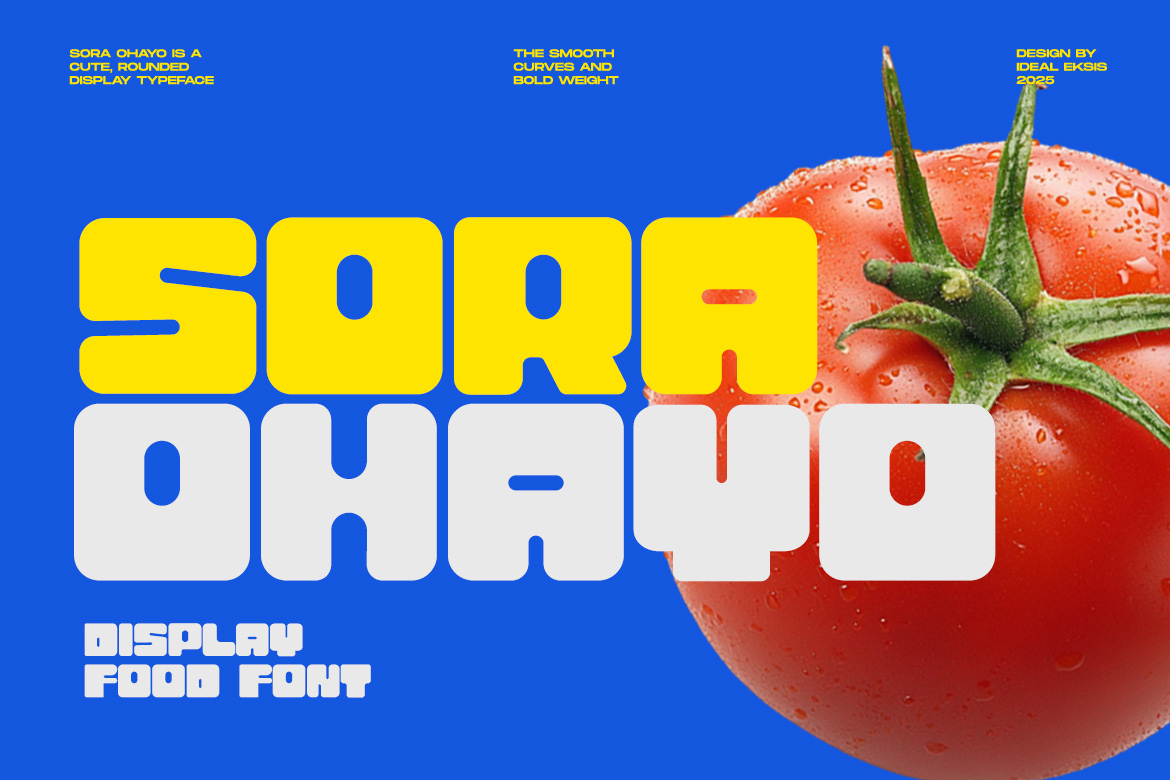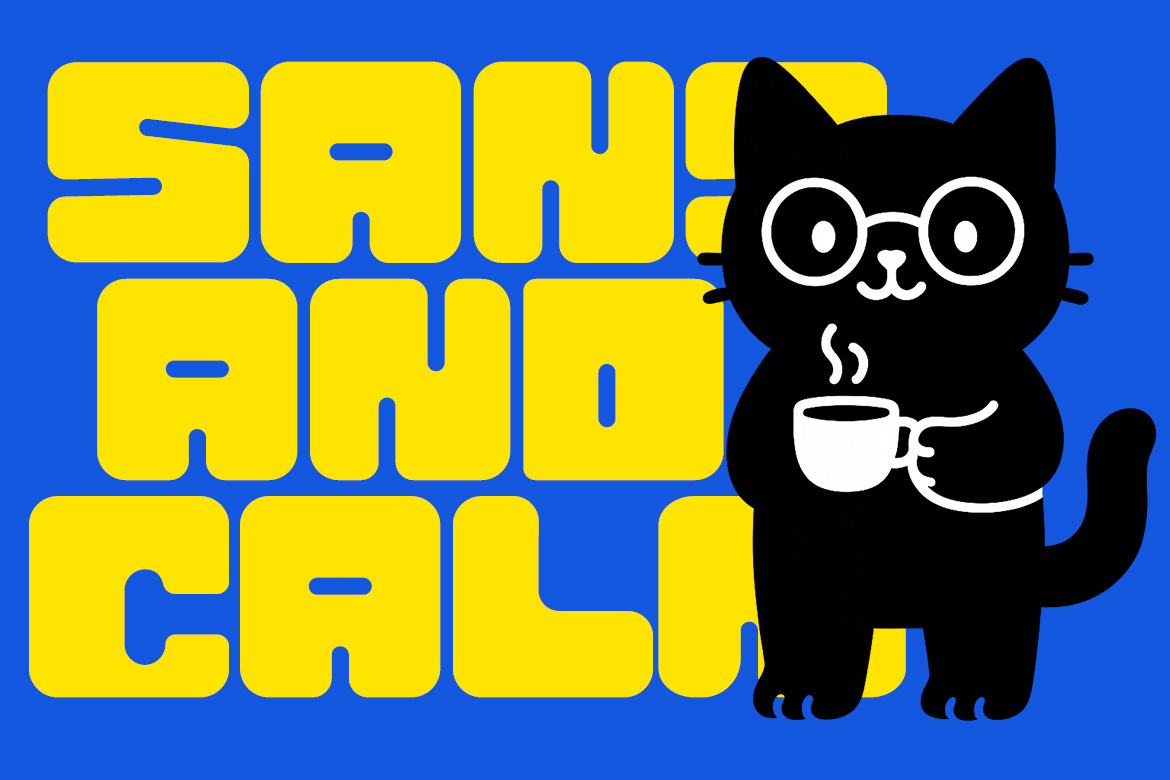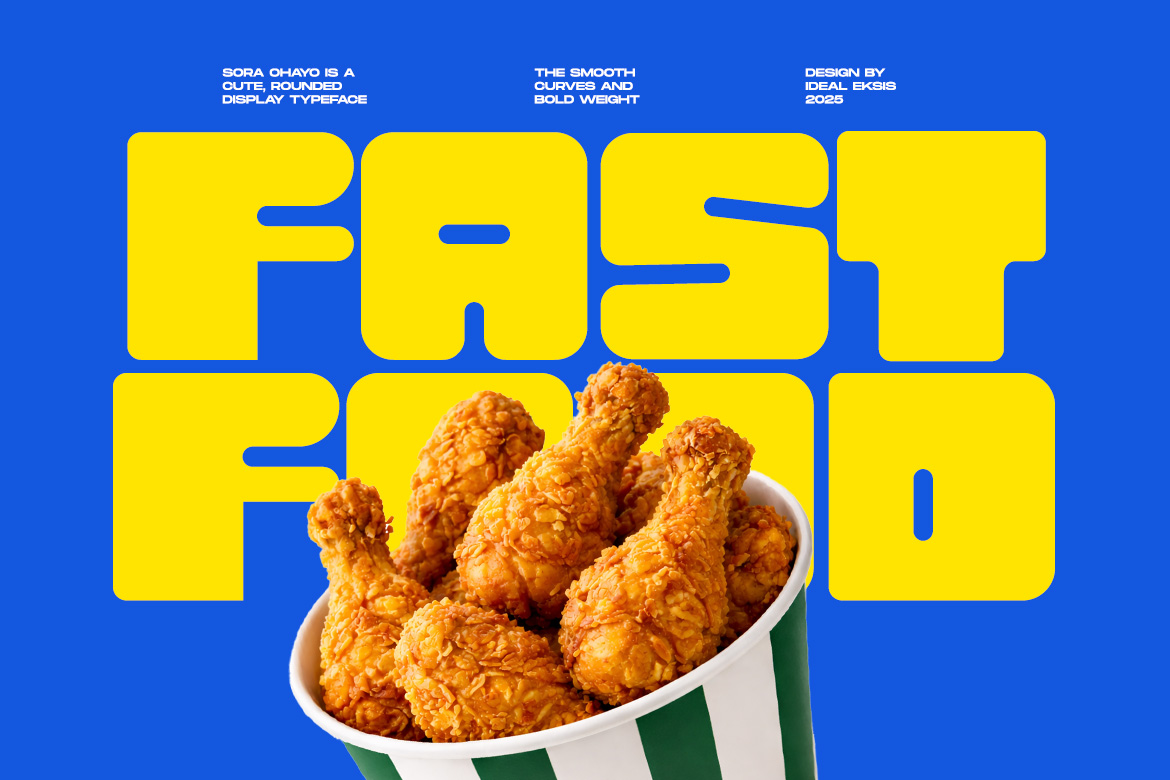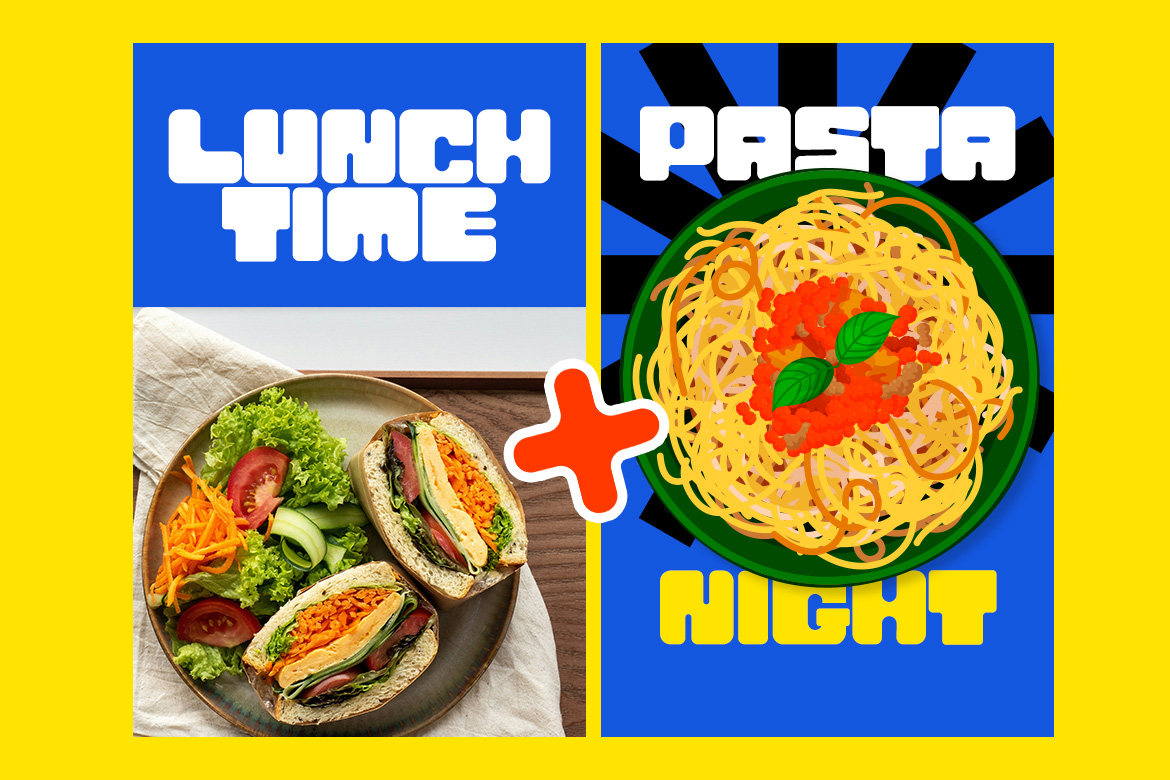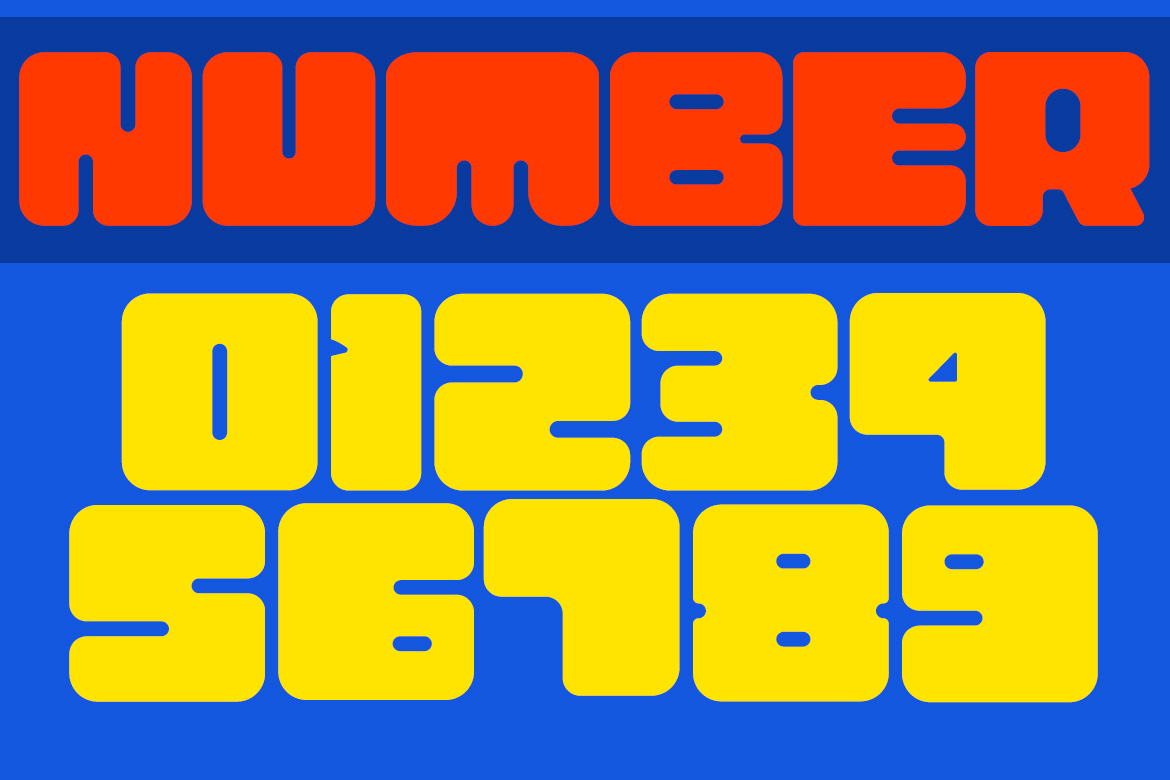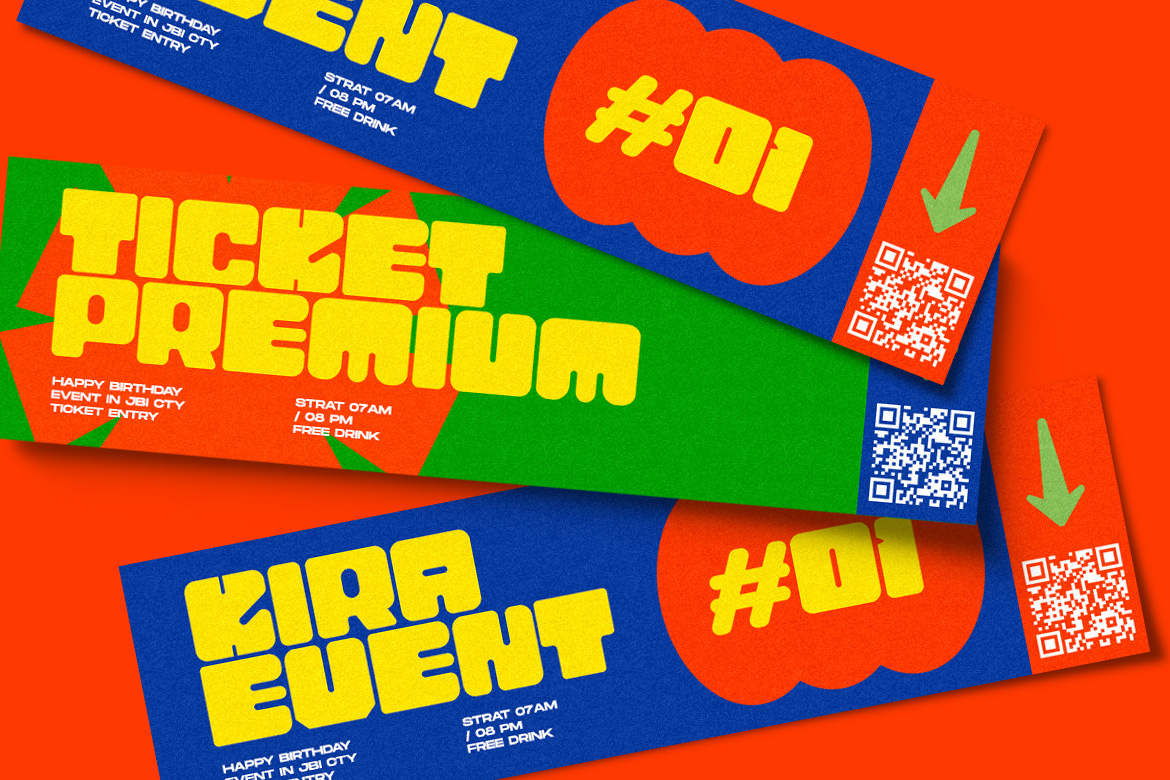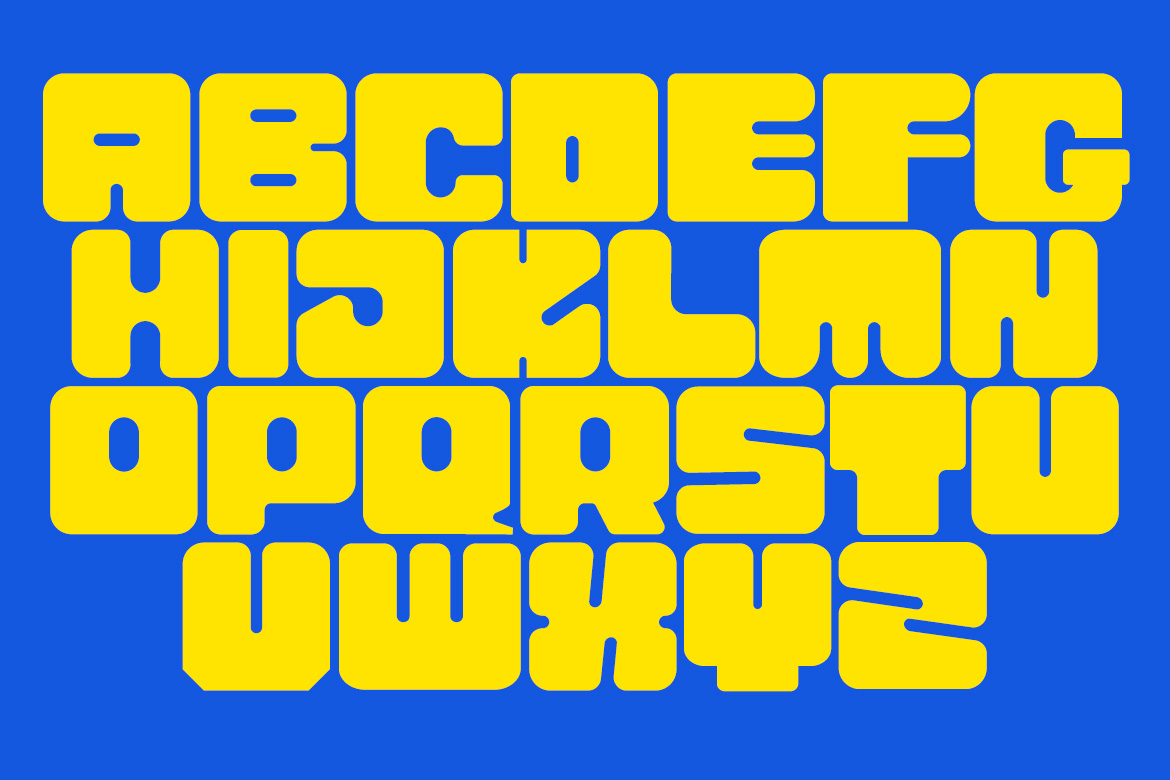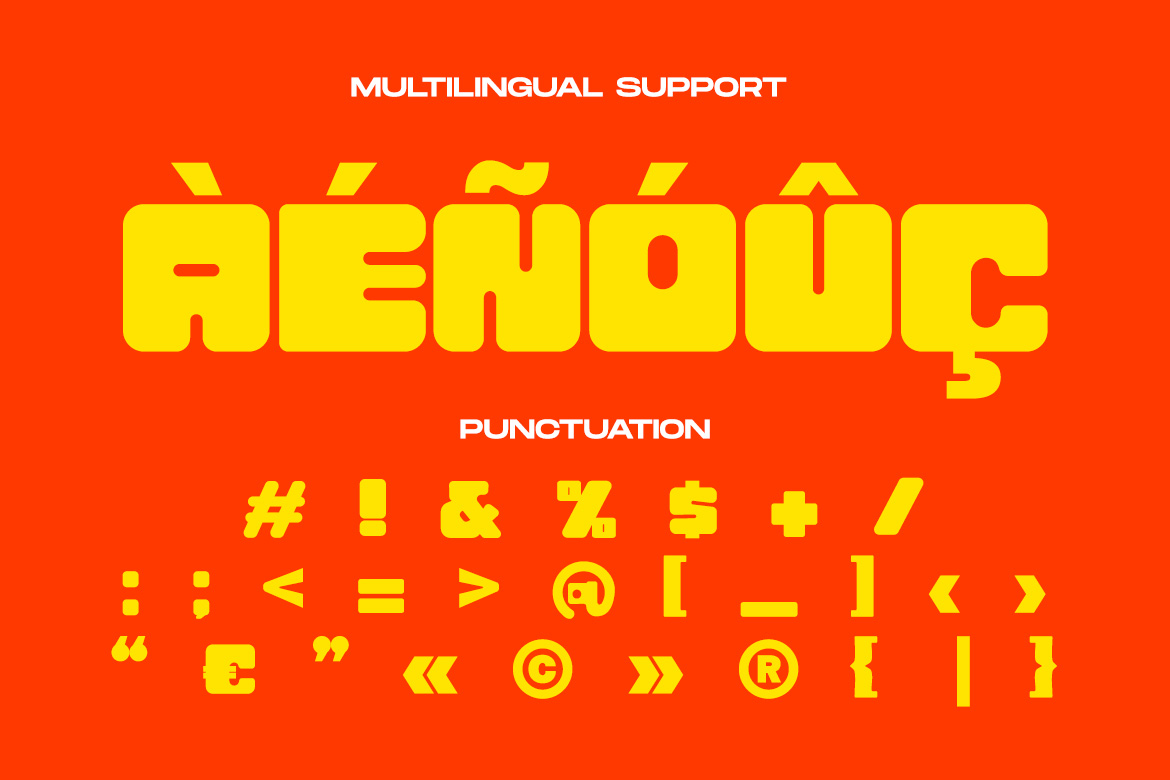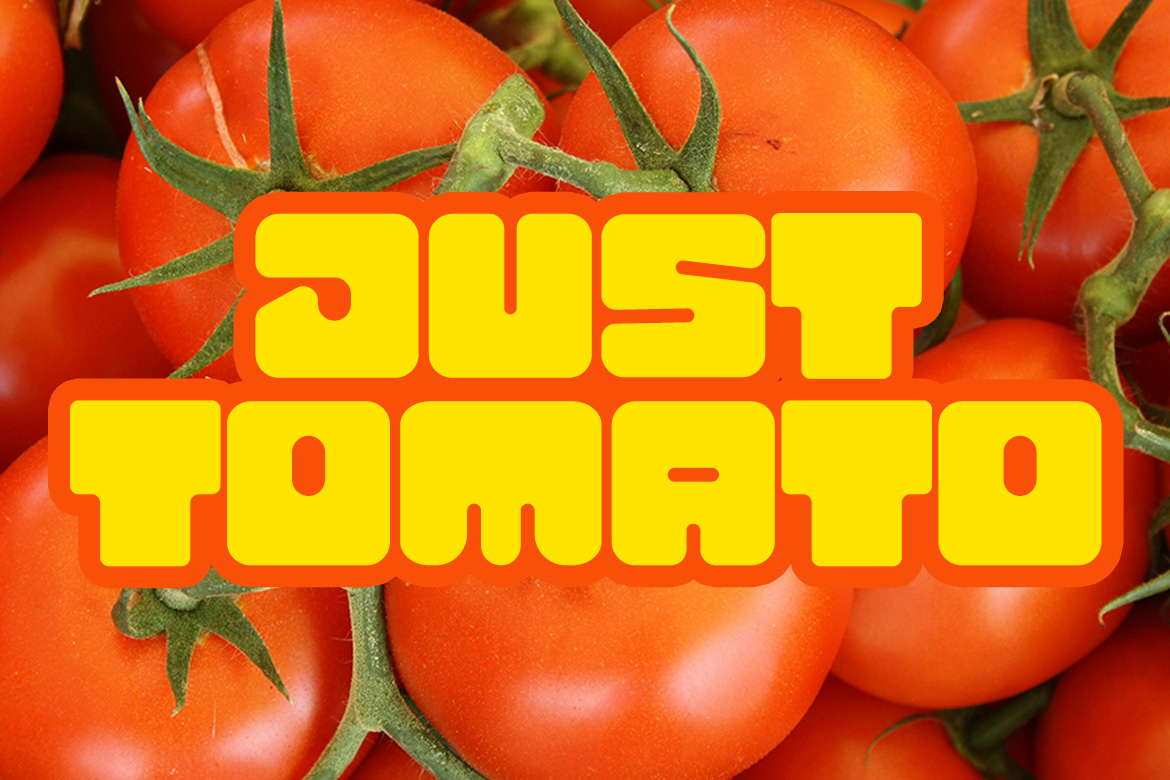
SORA OHAYO is a cute, rounded display typeface inspired by soft shapes and playful cartoon aesthetics. With its chubby letterforms and friendly personality, this typeface is perfect for children’s books, kawaii branding, character merchandise, social media graphics, and any project that needs a warm, cheerful vibe. The smooth curves and bold weight make it highly readable while maintaining its charming, bubbly attitude.
Perfect for
- Bakery and café branding
- Food and beverage logos
- Restaurant menus and signage
- Coffee shop and donut shop designs
- Food packaging and labels
- Social media food promotions
- Kitchen-themed posters and prints
- Culinary blogs and recipe graphics